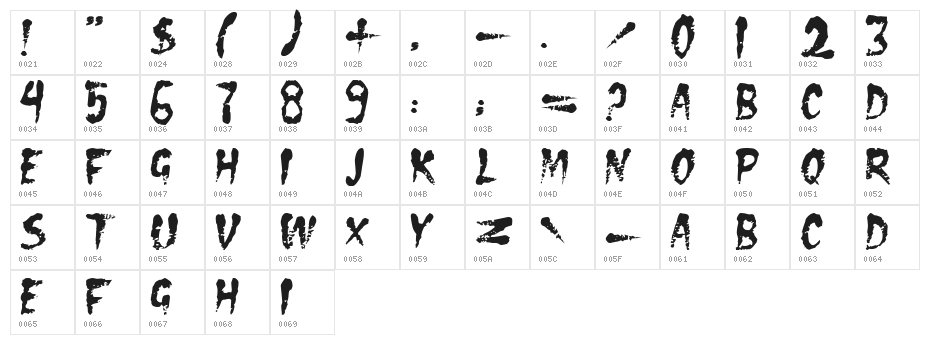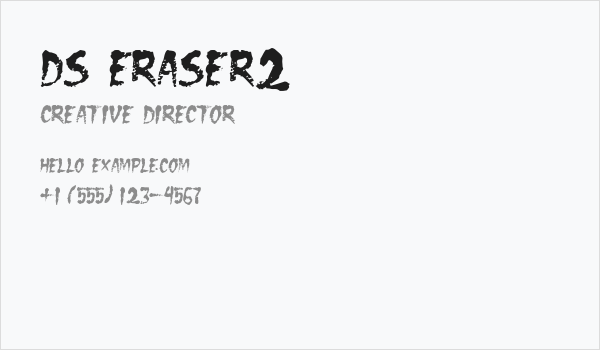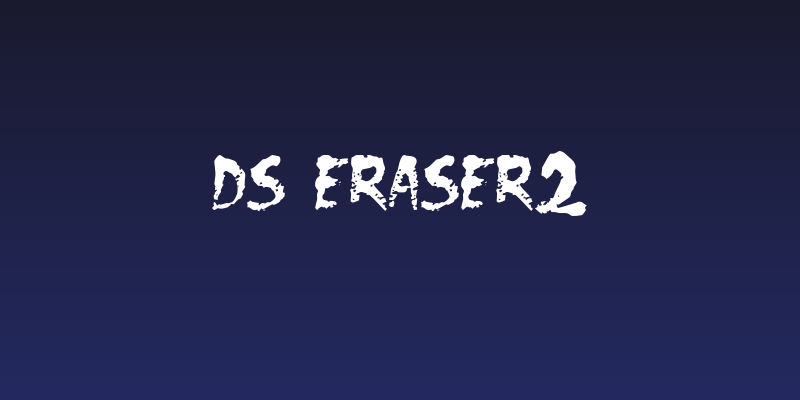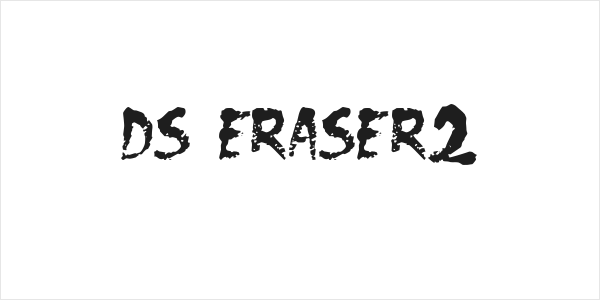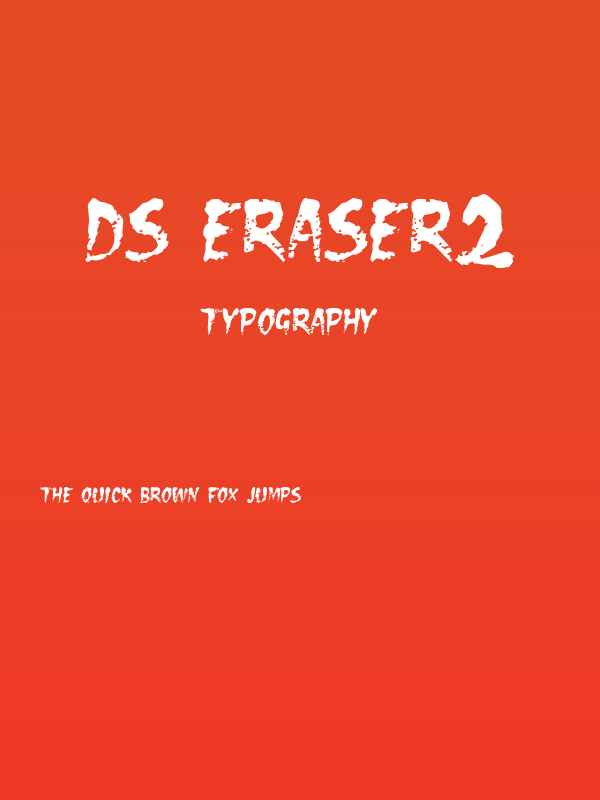
DS Eraser2 Font
DS Eraser2 Description
This font features a distressed, eroded style that gives it a rugged and edgy appearance. The characters appear as if they have been partially erased or weathered over time, creating a unique texture that adds depth and character. The uppercase and lowercase letters maintain a consistent design, with jagged edges and irregular shapes that enhance the font's raw aesthetic. Numbers and special characters follow the same theme, ensuring a cohesive look across all elements. This font is ideal for projects that require a bold, impactful statement, such as posters, album covers, or branding for edgy or alternative products.
| Proposed Projects | Ideal for posters, album covers, edgy branding, and alternative product designs. |